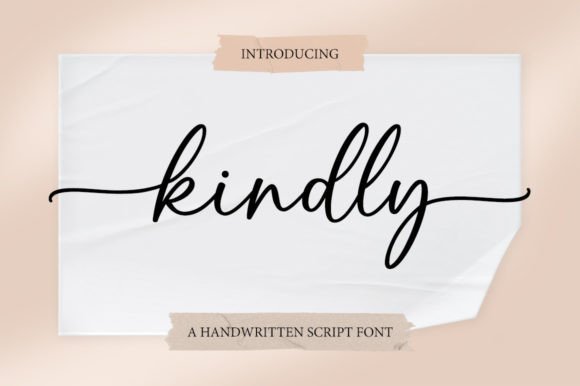
Dive into a world of sophistication and charm with Kindly, the script font that captivates hearts and elevates designs. Crafted by the skilled artists at Graphix Line Studio, Kindly is a masterpiece of elegance and grace, perfect for fashionistas, lifestyle bloggers, and creative entrepreneurs seeking to make a lasting impression.
With its delicate strokes, sweeping curves, and graceful swashes, Kindly exudes an air of refinement and luxury. Each character is meticulously crafted to ensure perfect balance and harmony, creating a visual symphony that dances across your screen. Whether you're designing logos, branding materials, or social media posts, Kindly adds an instant touch of sophistication and allure.
Step into the realm of boundless creativity with Kindly, the font that knows no limits. Its versatility extends far beyond logos; it's the perfect choice for wedding invitations, greeting cards, posters, flyers, and even website designs. Allow Kindly to infuse your projects with a touch of timeless elegance, leaving a lasting impact on your audience.
Unleash the power of self-expression with Kindly, the font that speaks to your soul. Its enchanting curves and flowing lines evoke emotions and create a deep connection with your audience. From heartfelt love letters to inspiring quotes, Kindly transforms words into art, captivating readers and leaving them spellbound.
Join the ranks of creative visionaries who have embraced Kindly's allure, transforming their designs into works of art. Elevate your brand and captivate your audience with a font that speaks volumes without uttering a single word. Kindly awaits your creative touch, ready to embark on a journey of visual storytelling that will leave an indelible mark on the world.